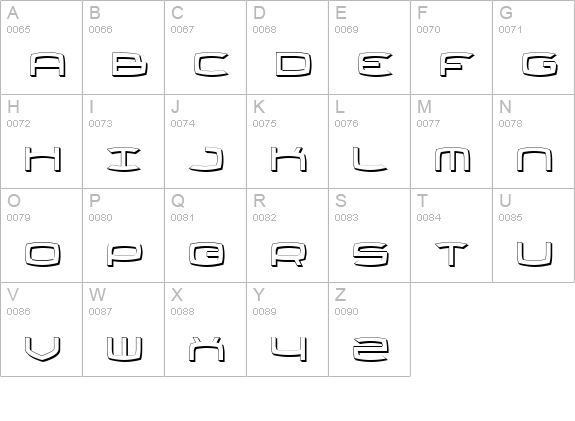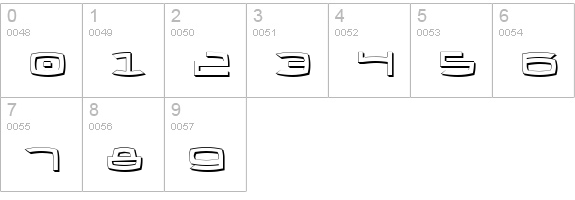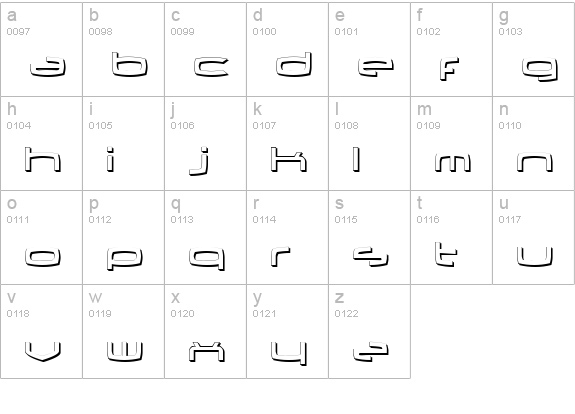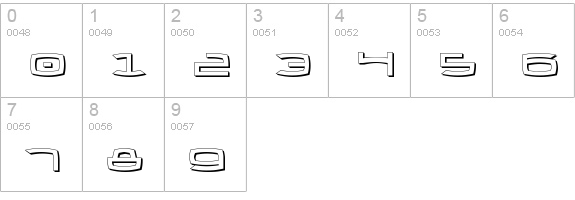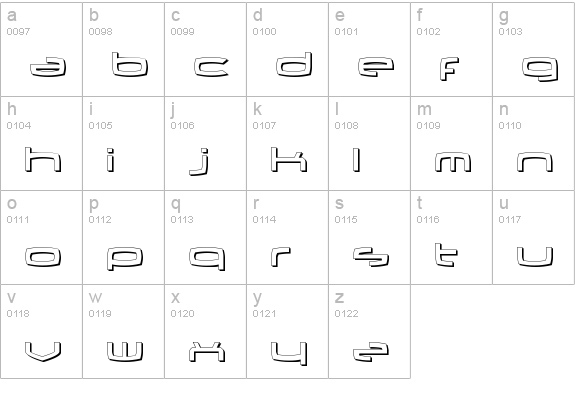
Introducing Thundergod II Shadow, a powerful and captivating font that commands attention with its bold and striking design. This font emanates an aura of strength and dominance, making it the perfect choice for projects that require a touch of intensity and power. Thundergod II Shadow exudes a mystical and mysterious vibe, with its unique shadowed effect adding depth and dimension to each character. Each letter is meticulously crafted, showcasing intricate details and strong lines that draw the eye and leave a lasting impression. One of the best features of Thundergod II Shadow is that it is available for free! Yes, you read that right. This remarkable font can be freely downloaded at FontsMarket.com, allowing designers, creatives, and enthusiasts alike to access this magnificent typeface without any cost. Whether you're working on a logo, poster, website, or any other project that requires a bold and impactful font, Thundergod II Shadow will effortlessly enhance your designs and elevate them to new heights. Its versatility allows it to be used in various settings, from modern and edgy to classic and elegant. Don't miss out on this incredible opportunity to add Thundergod II Shadow to your font library. Download it for free at FontsMarket.com and let its thunderous presence electrify your creative projects. Embrace the power and allure of Thundergod II Shadow and let your designs roar with strength and charisma.